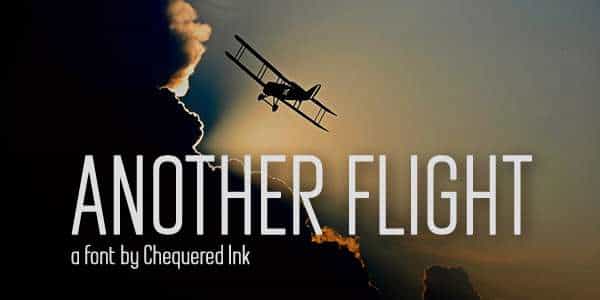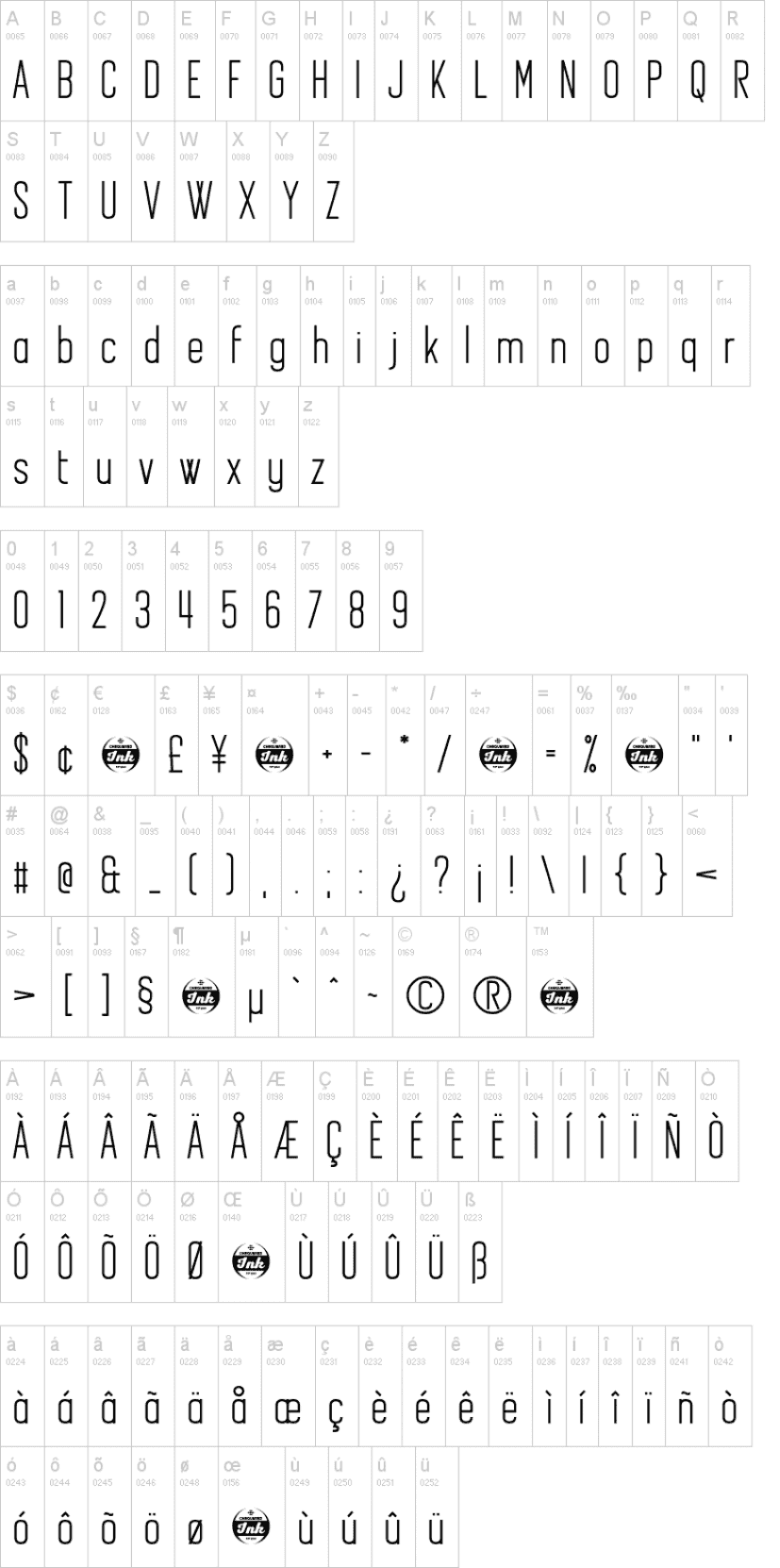
Discover Another Flight Font, part of the Sans Serif collection—a versatile and unique font perfect for adding a personal touch to your projects. Download it for free and enjoy crafting designs with style, from invitations to social media posts. This font is available exclusively for personal use, giving you the freedom to create without limits. Unlock your creativity with Another Flight Font today!
Another Flight is a professional sans serif font that has been released by the designer Chequered Ink and is available for free downloading and for personal use only. The free one has the letters of the alphabet both in uppercase and lowercase and a few other characters.